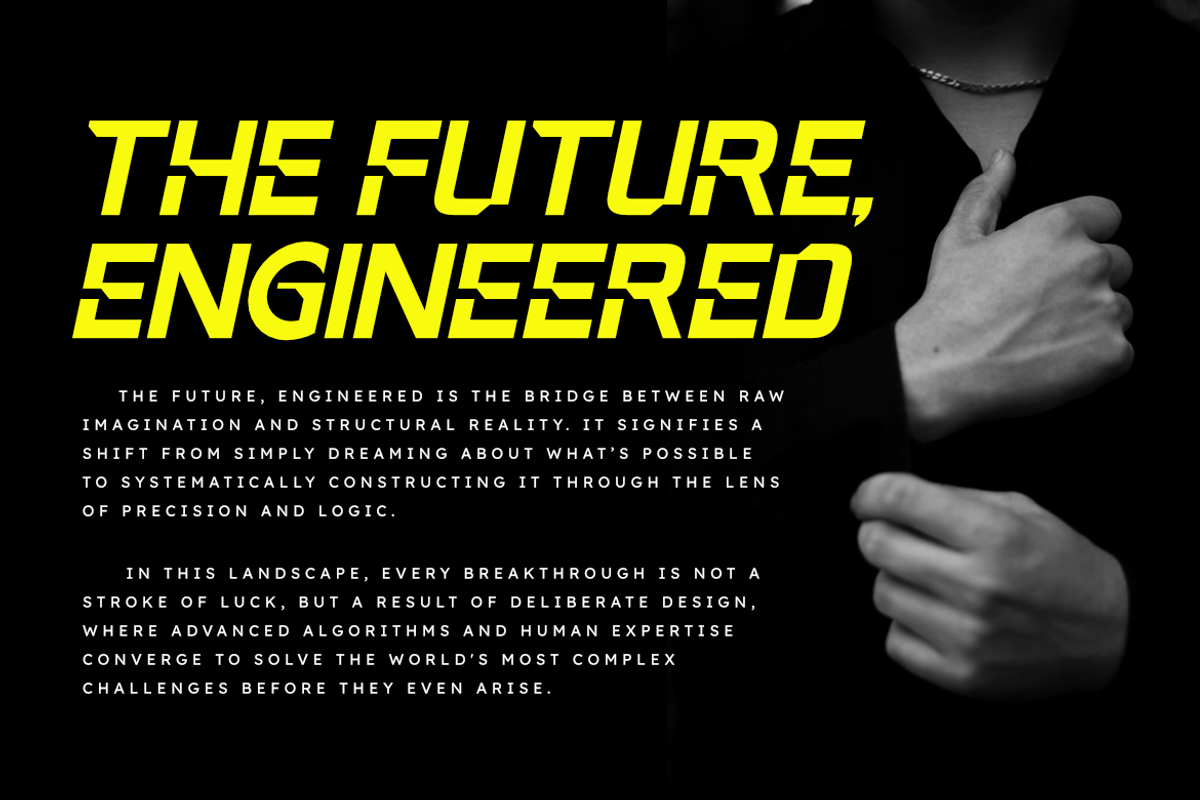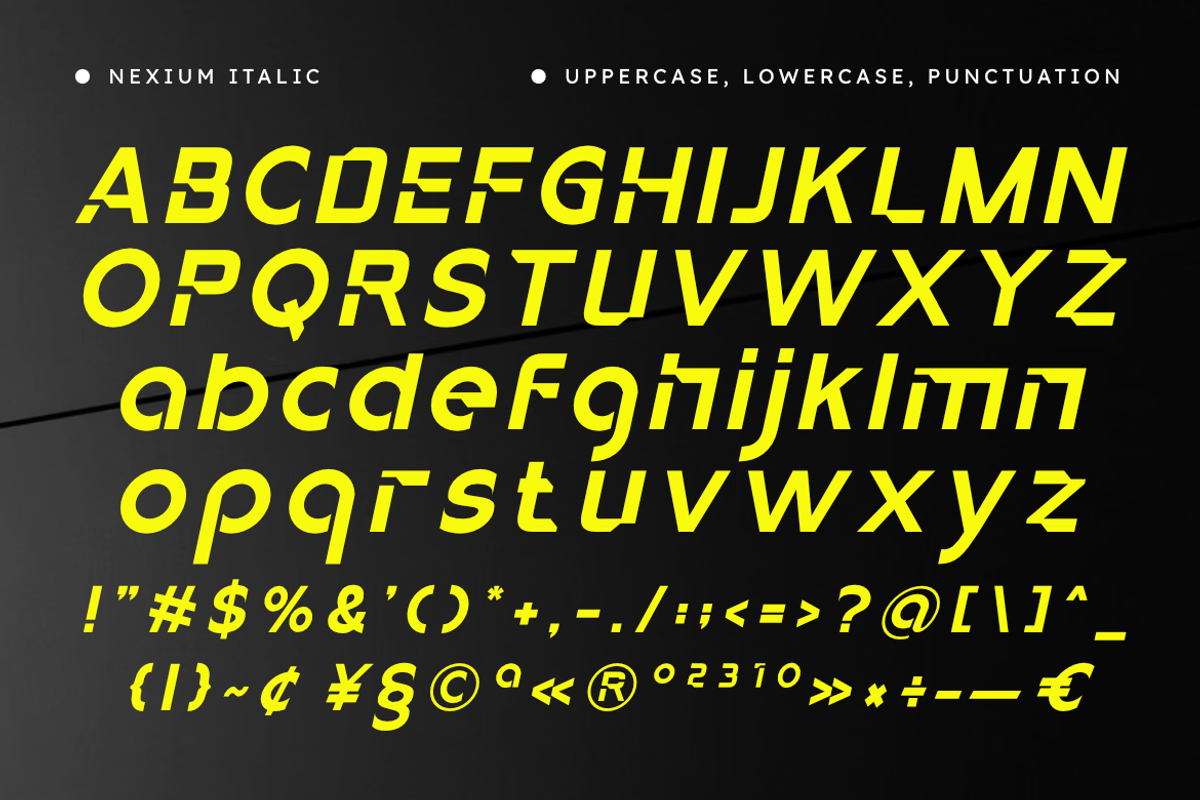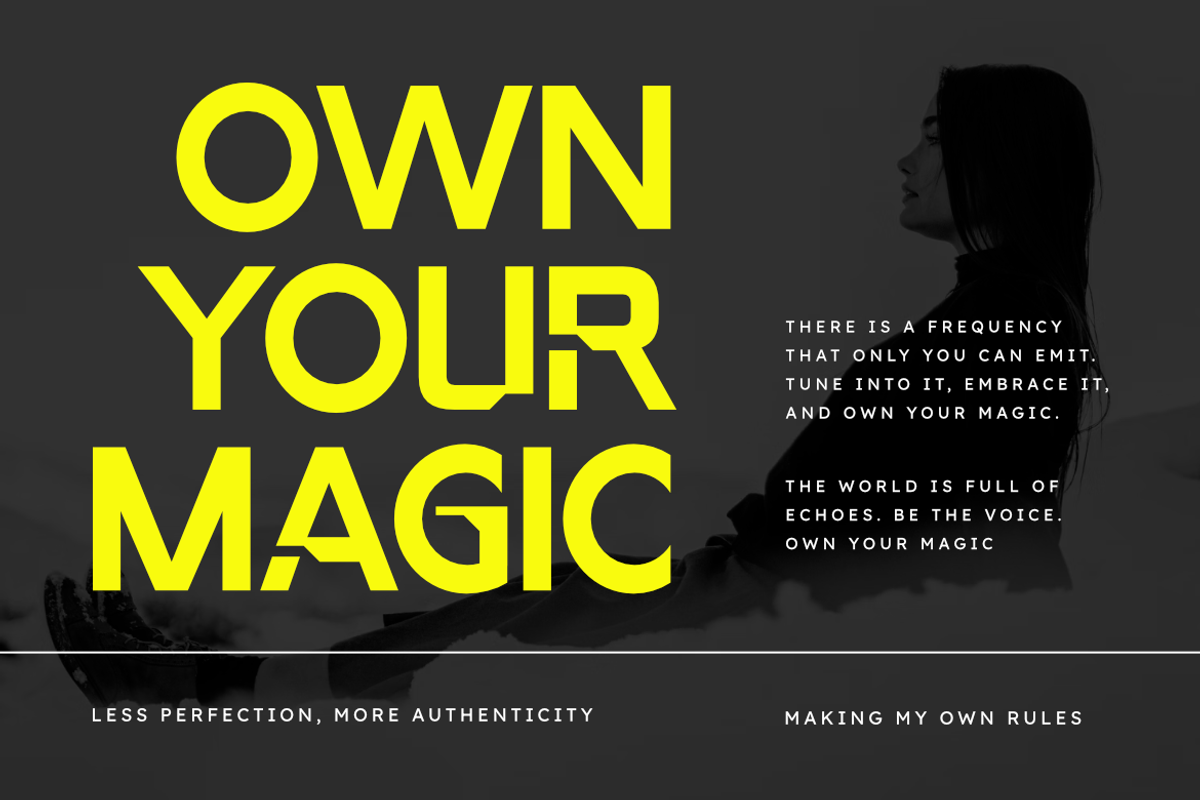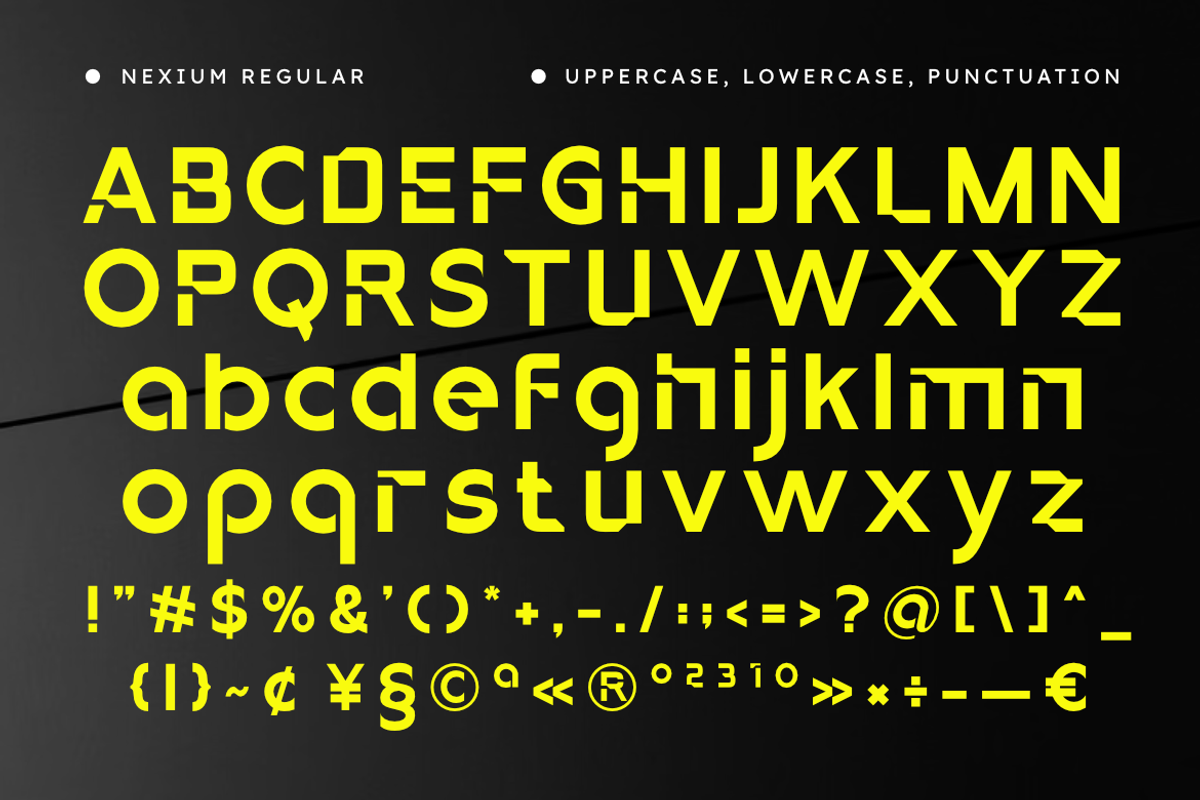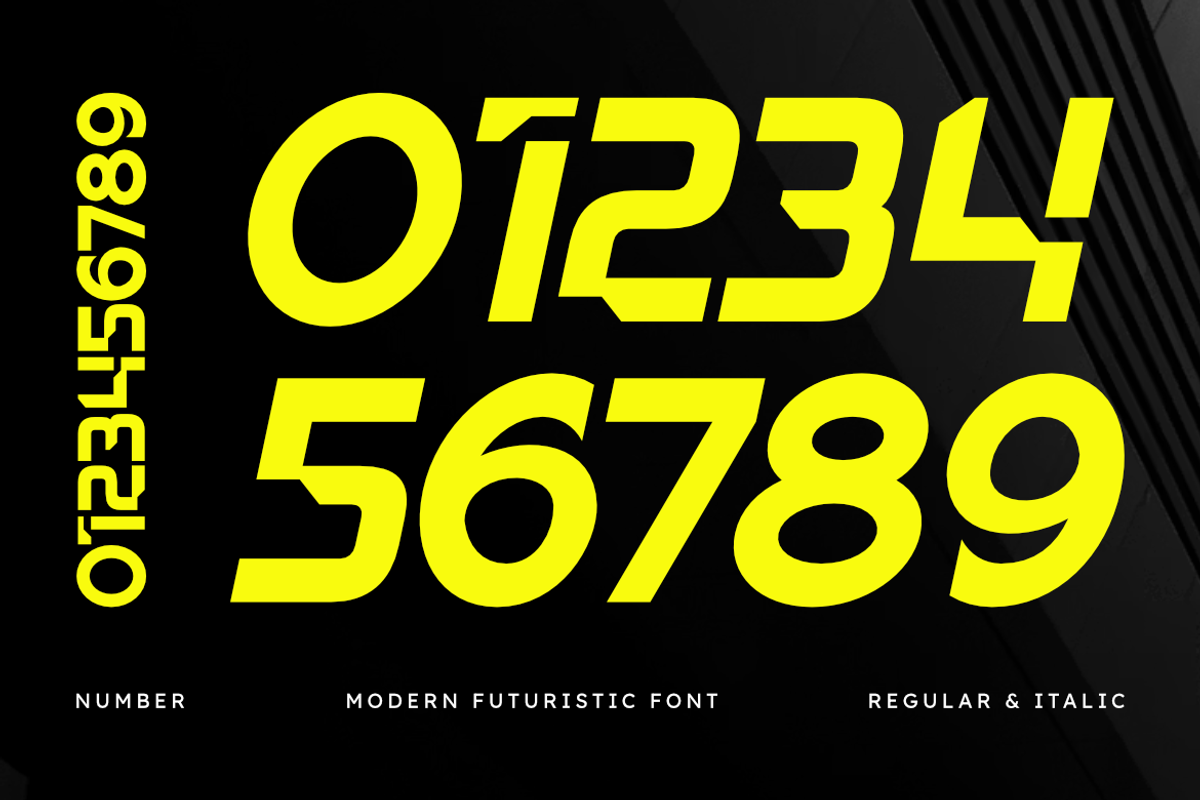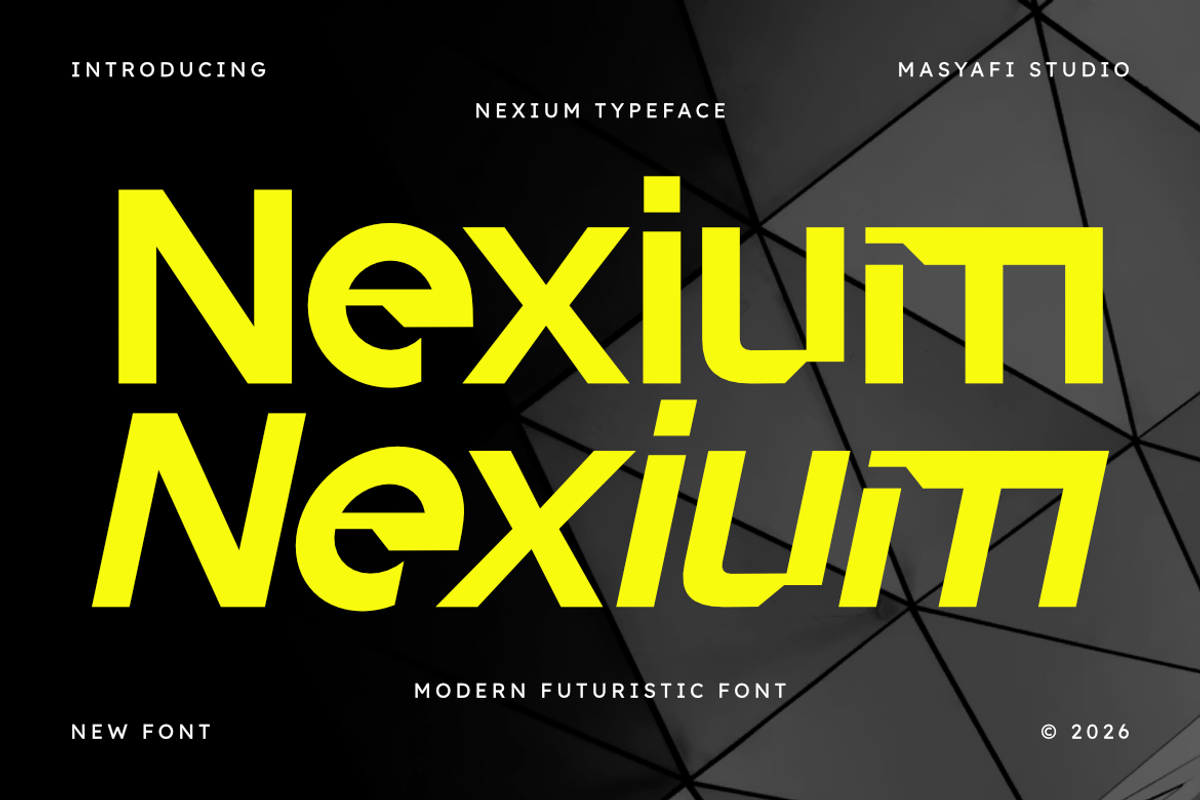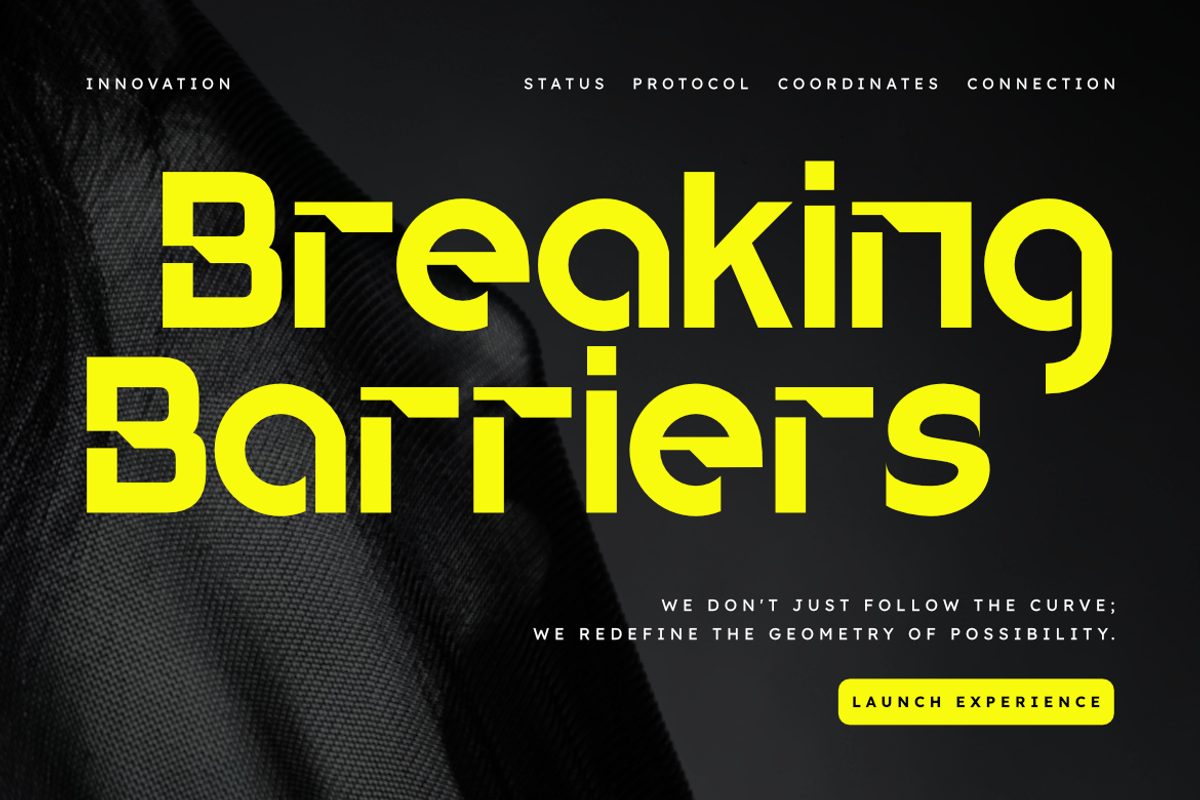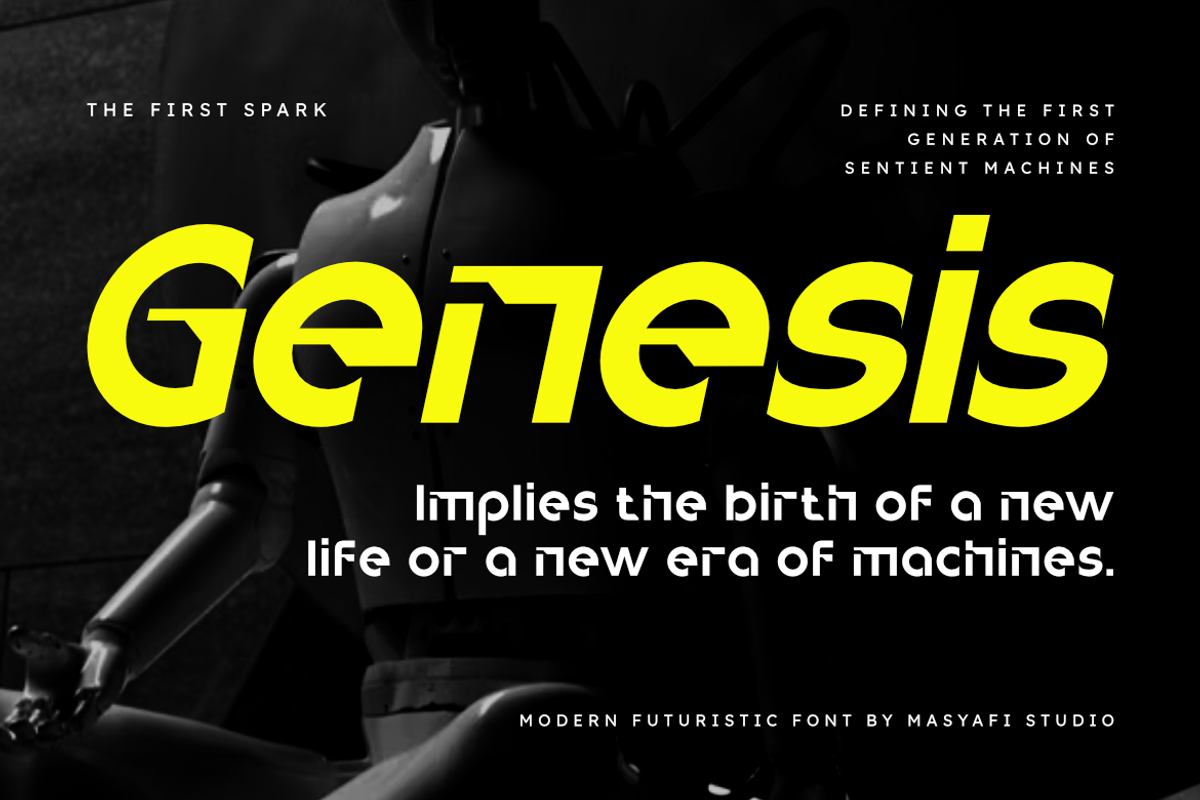
Nexium | Modern Futuristic Tech Font
Elevate your visual identity with Nexium, a sophisticated modern typeface built for precision and impact. Inspired by industrial innovation and digital minimalism, Nexium features a unique wide-track design and bold stencil-like cuts that give your typography a premium, forward-thinking edge.
With the addition of a dynamic Italic style, Nexium provides the flexibility needed for diverse design applications. Whether you’re building a brand for a tech startup, designing an esports logo, or creating cinematic movie titles, Nexium delivers a sharp, professional finish that commands attention in any digital or print environment.
- Perfect for high-impact headlines and professional branding.